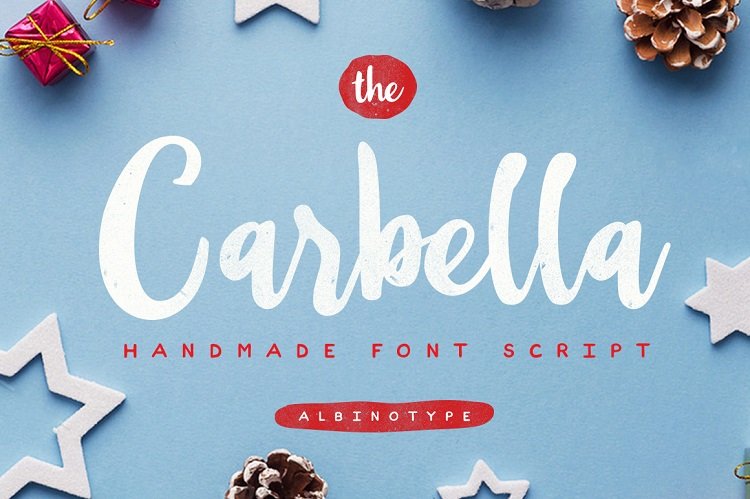
The Carbella Script Font
Special gift to introduce to you today is a beautiful handwriting font. The Carbella a work that is purely a result of handwriting and writing by using a liquid ink pen, has a natural characteristic. It is perfect for invitations, signatures, blogs, social media, business cards, product brands.